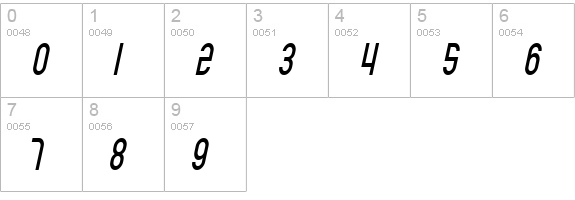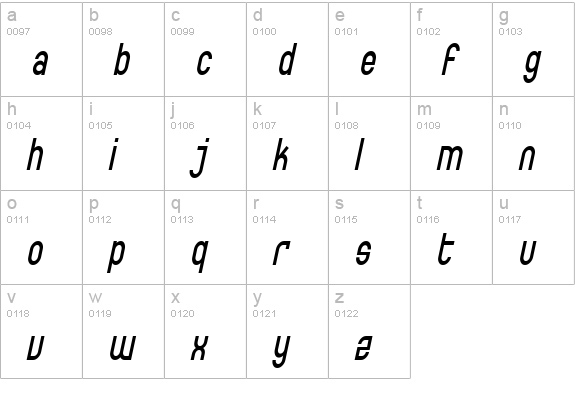
SF Eccentric Opus Condensed Oblique Font Details
SF Eccentric Opus Condensed Oblique is a distinctive, condensed-width, italic variant in the SF typeface family \xE2\x80\x94 well suited to design and typography projects.
SF Eccentric Opus Condensed Oblique is a unique and eye-catching font that effortlessly combines eccentricity with elegance. This condensed oblique variant adds a touch of sophistication and intrigue to any design project. With its slanted and condensed letterforms, this font stands out from the crowd and exudes a distinct sense of style. Designed with creativity in mind, SF Eccentric Opus Condensed Oblique is perfect for adding a playful yet refined touch to headlines, logos, advertisements, and more. Its bold and slanted characters create a sense of movement and dynamism, making it ideal for designs that aim to grab attention and make a lasting impression. One of the best features of SF Eccentric Opus Condensed Oblique is that it is freely available to download at FontsMarket.com. This means that designers and typographers can access and utilize this font without any cost, making it a valuable resource for both personal and commercial projects. Whether you're looking to add a touch of quirkiness to your branding or want to make a statement with your typography, SF Eccentric Opus Condensed Oblique is the perfect choice. With its freely available download, it's never been easier to incorporate this striking and eccentric font into your designs.